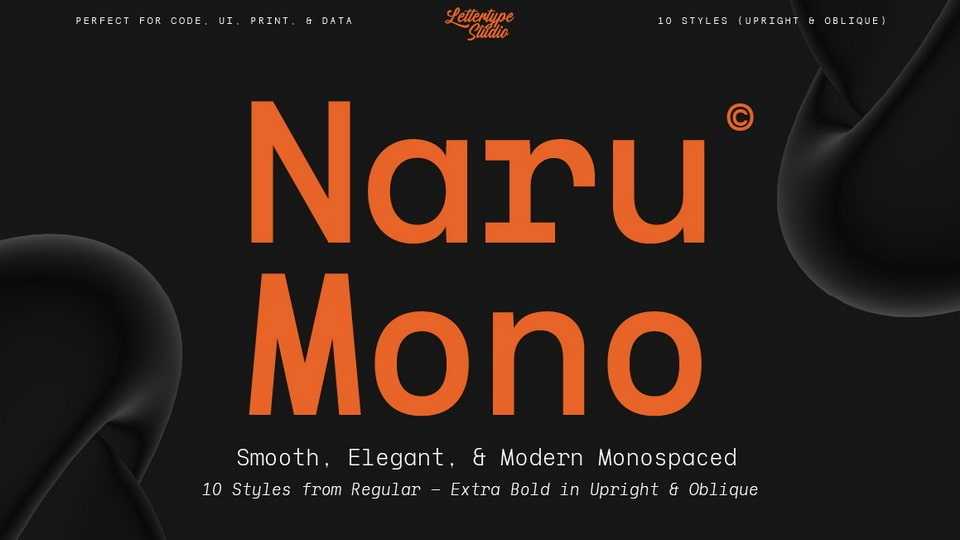
Download Naru Mono font, a modern, smooth, and elegant monospaced typeface family designed for clarity and precision with geometric construction and clean rhythm.
Designer: Lettertype Studio